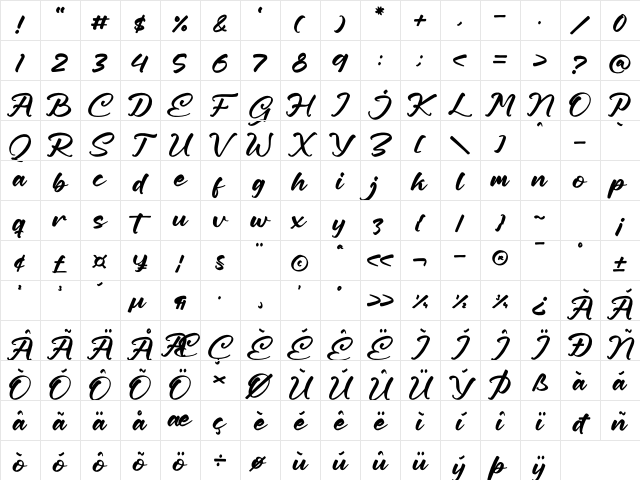
Callisya Novelyn Regular Free Font
Callisya Novelyn Regular
Foundry: Integritype Studio
Designer: Nanang Jamaludin
Design Context for Callisya Novelyn
Callisya Novelyn is a composed and adaptable typeface that performs quietly and consistently across a wide range of design contexts.